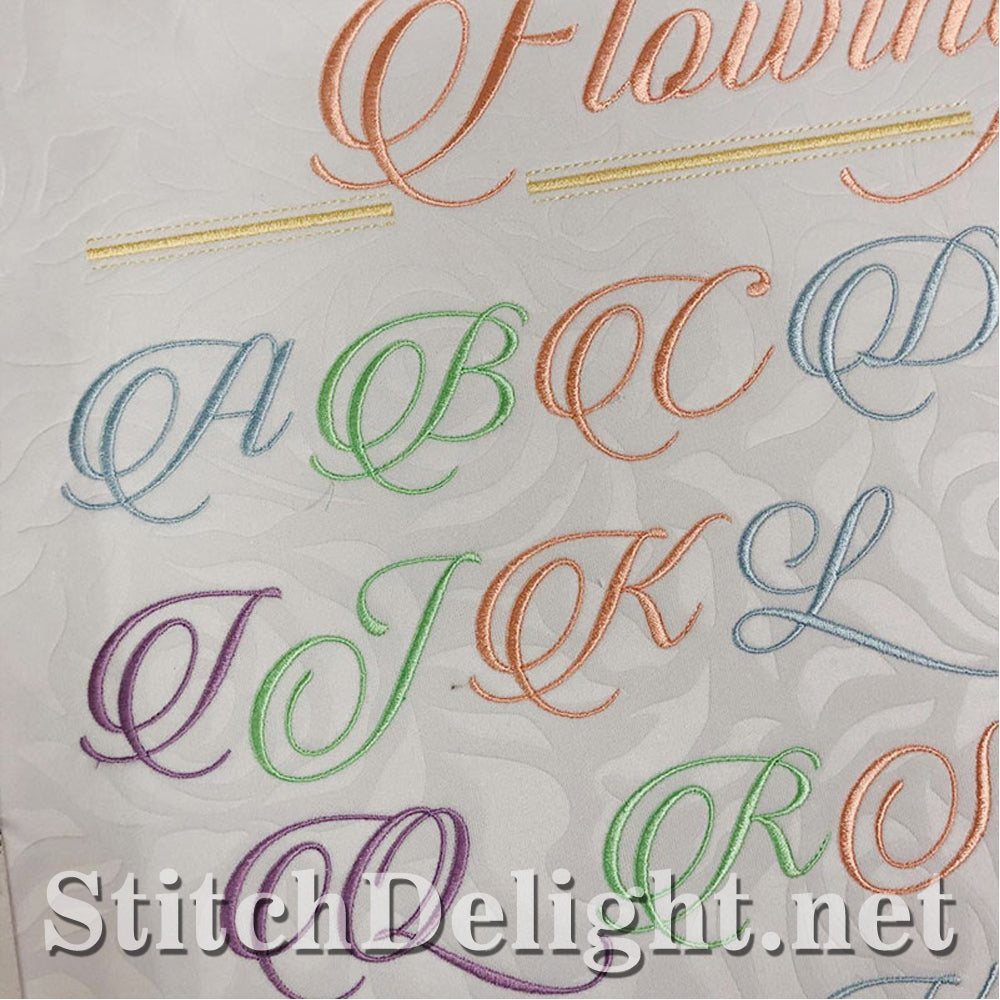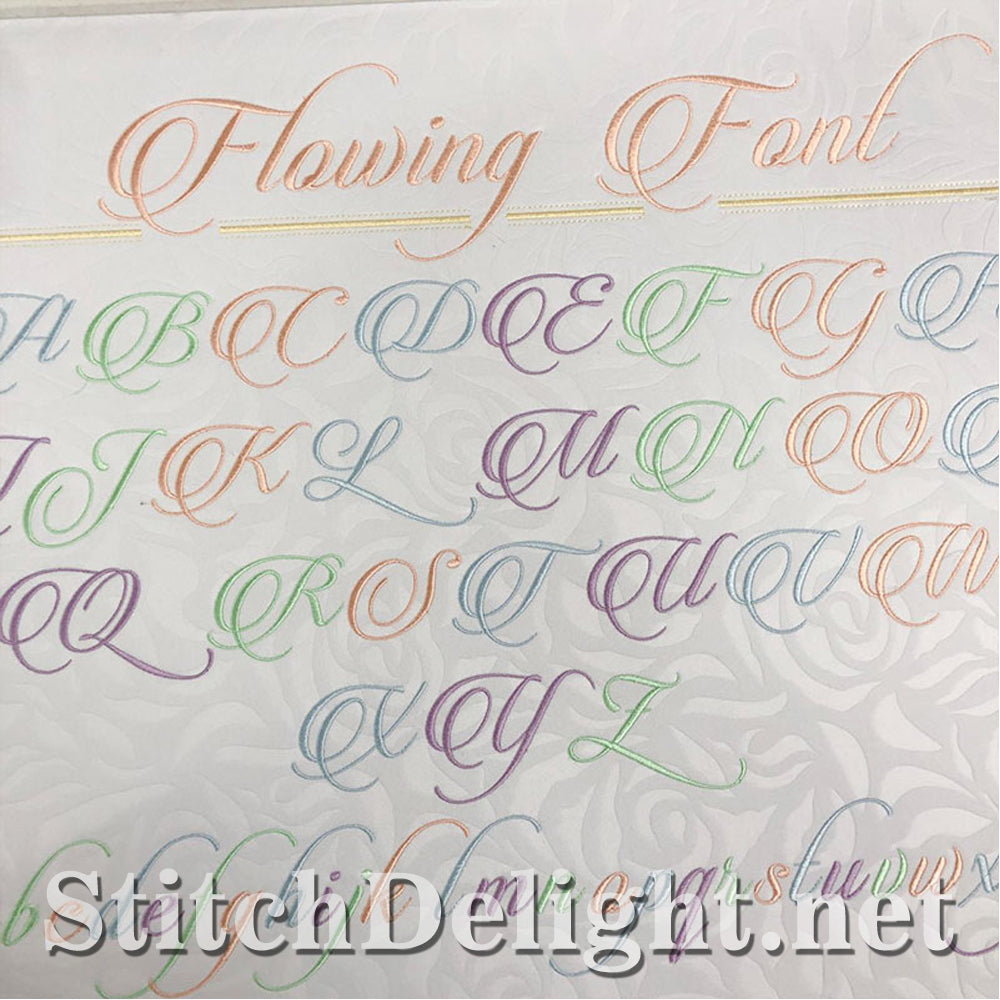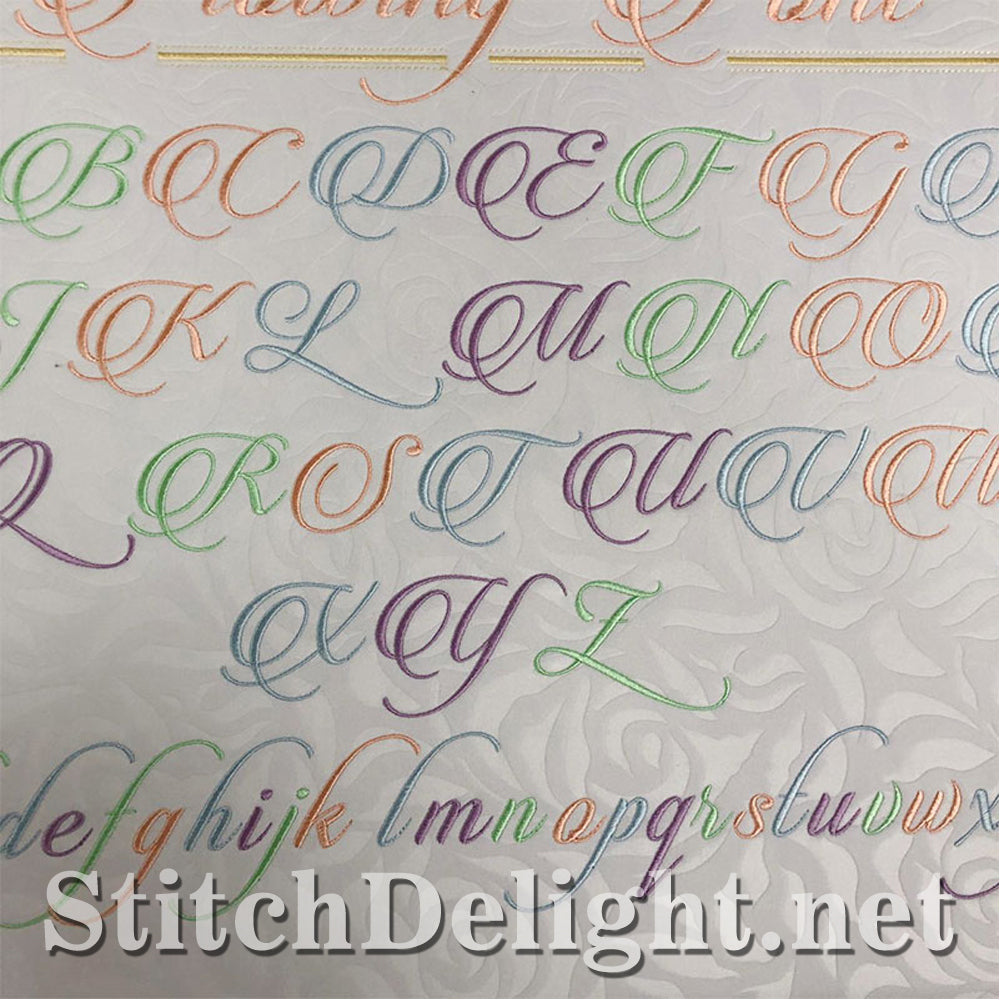
SDS1507 Flowing Font
Beautiful flowing font letters with a letter height of 1.88inch / 47.75mmTo view all files included (Capital and small letters) sizes and stitch count.